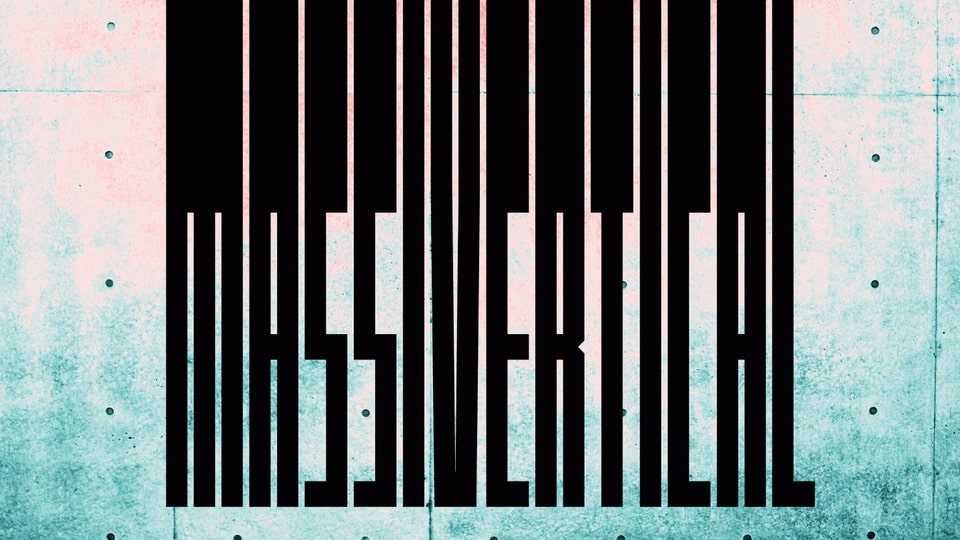
Download Massivertical font, a tall and narrow rectangular typeface designed to make a bold statement in your creative projects. Massivertical font is a sleek and modern choice for any design that demands verticality and a refined, space-conscious aesthetic.
Designer: Mikhail Shmat